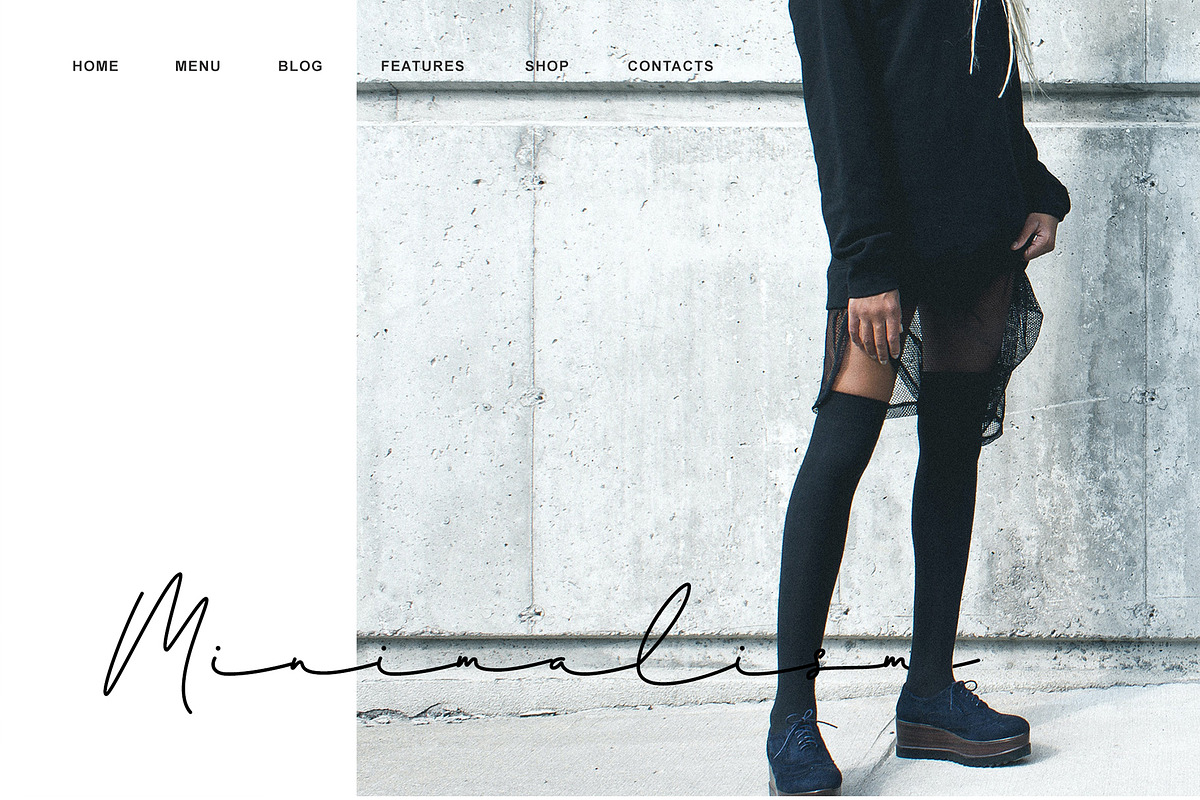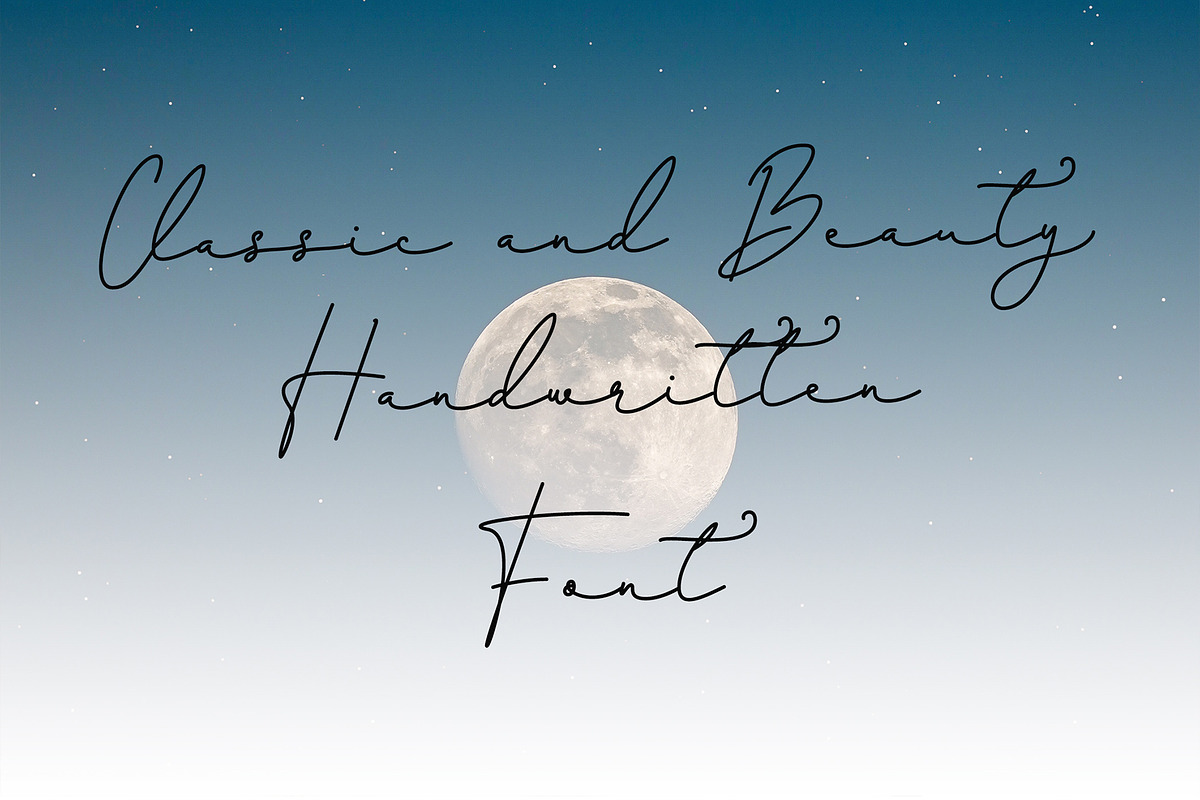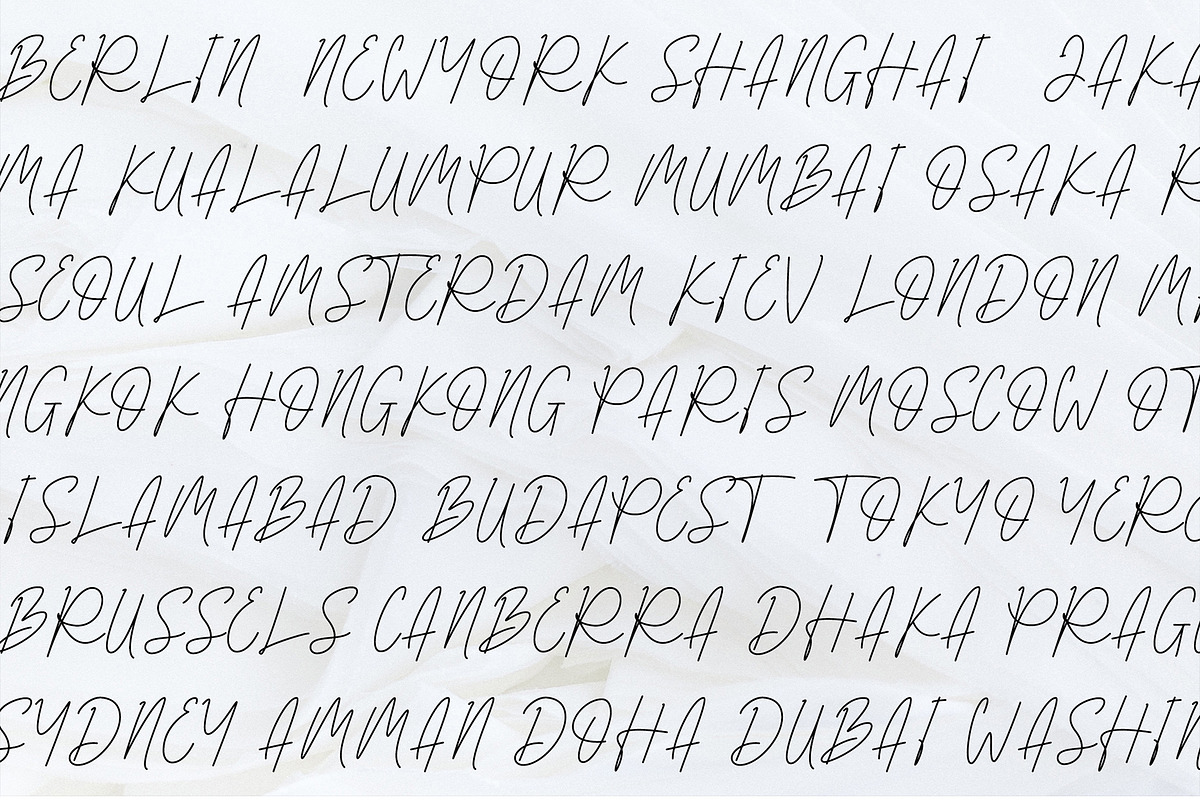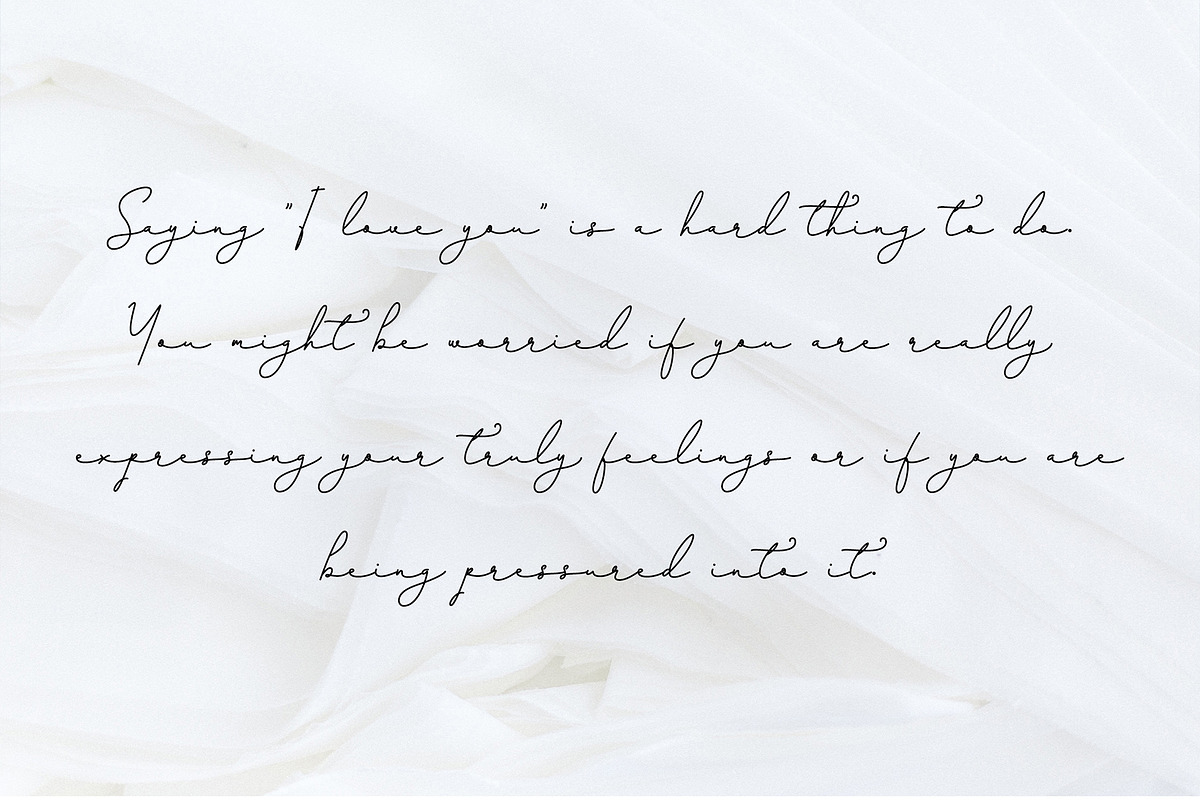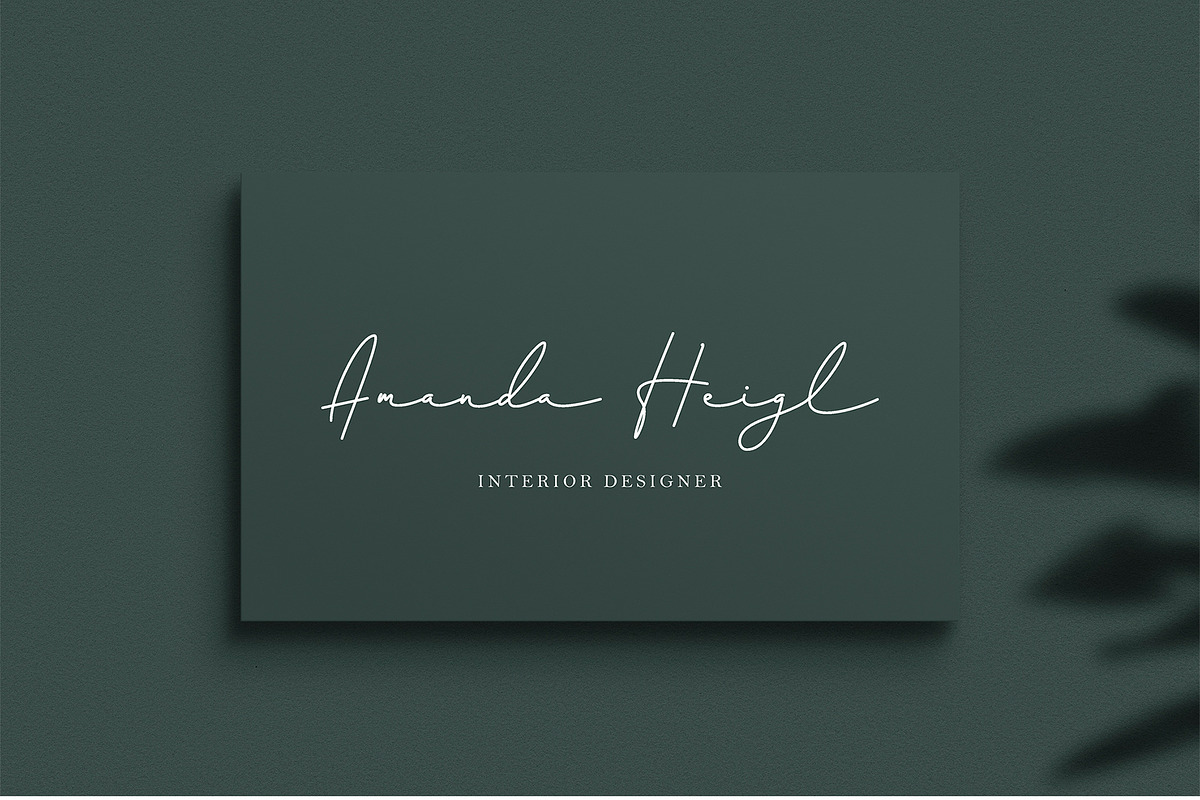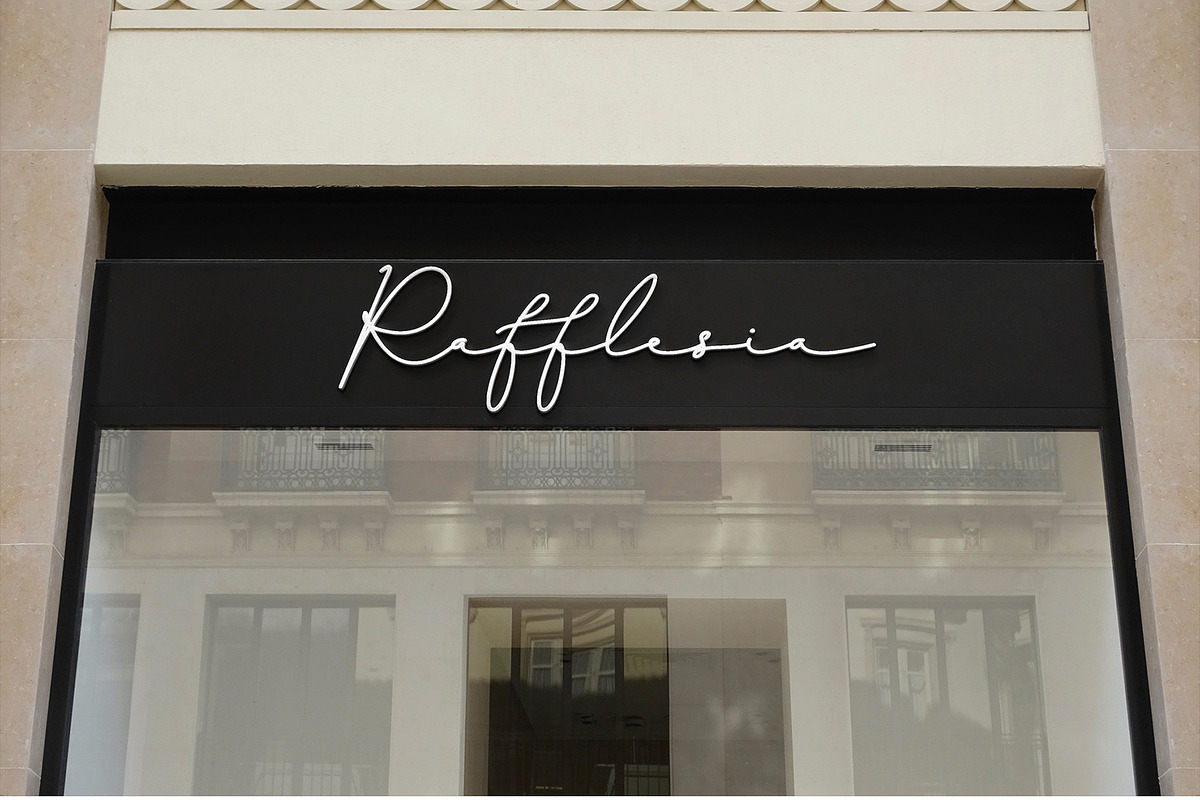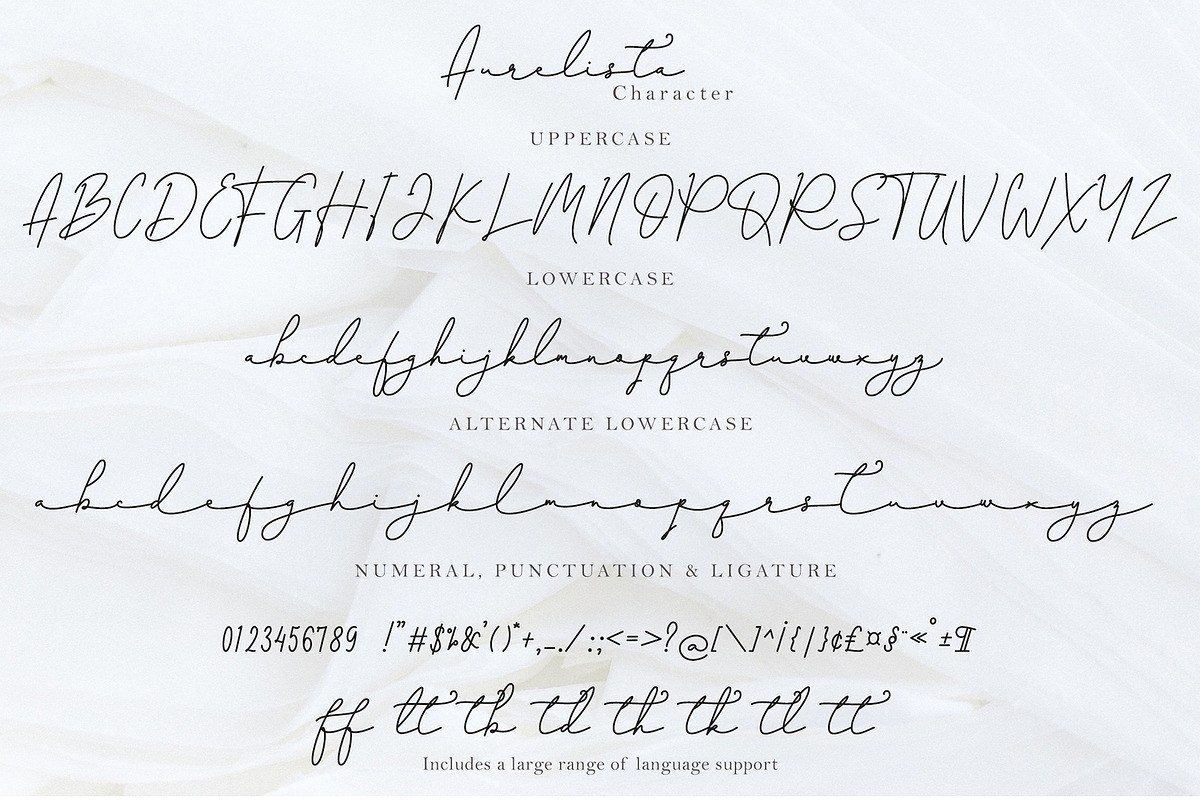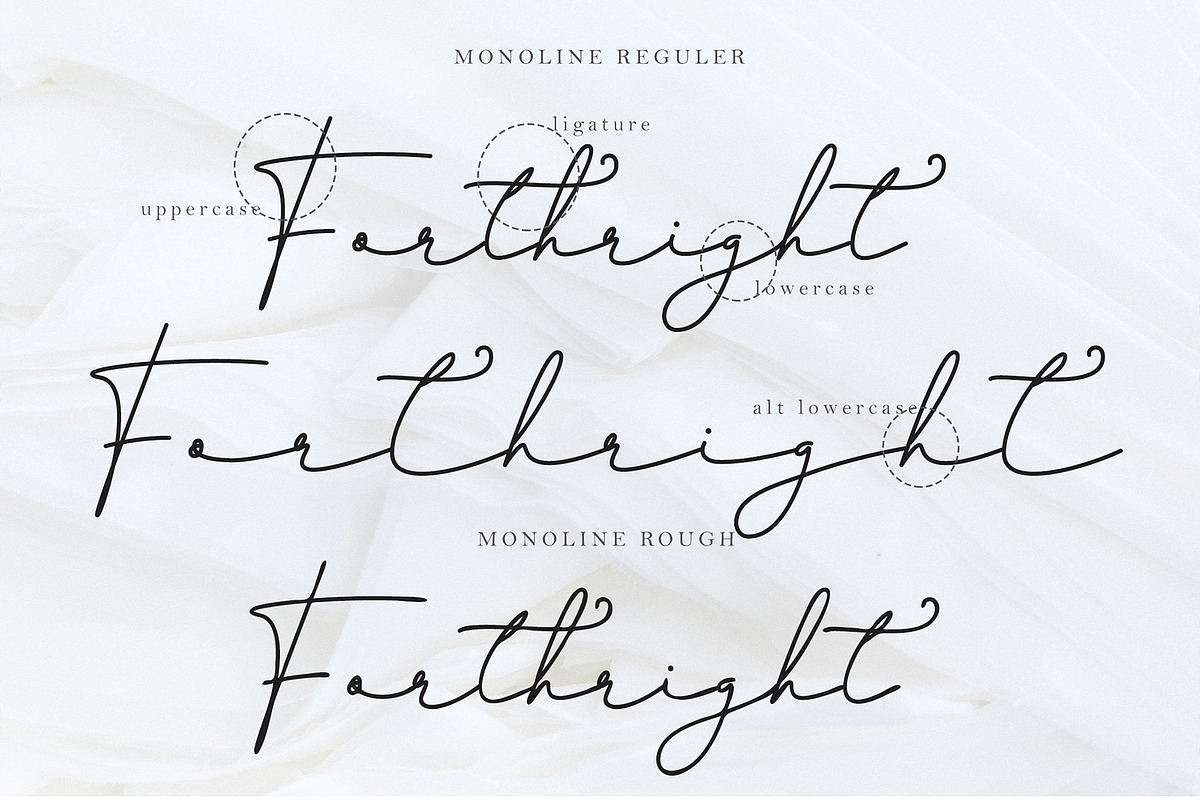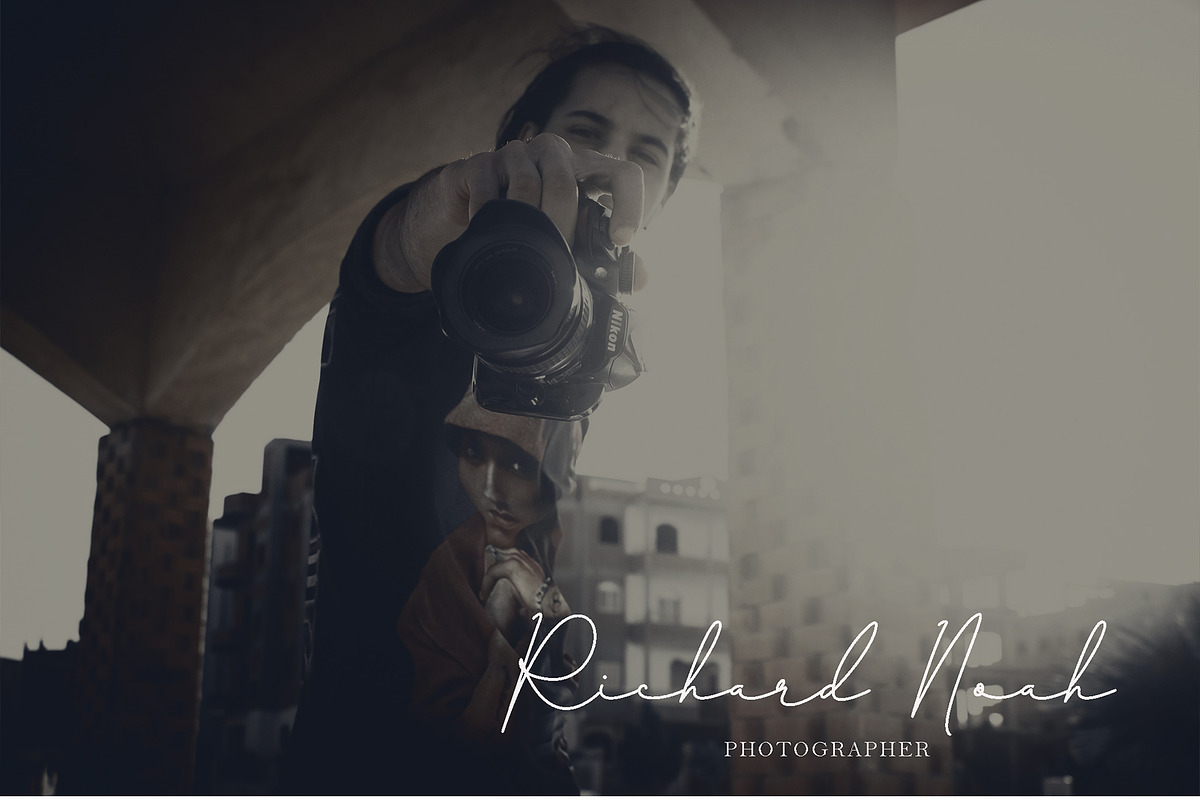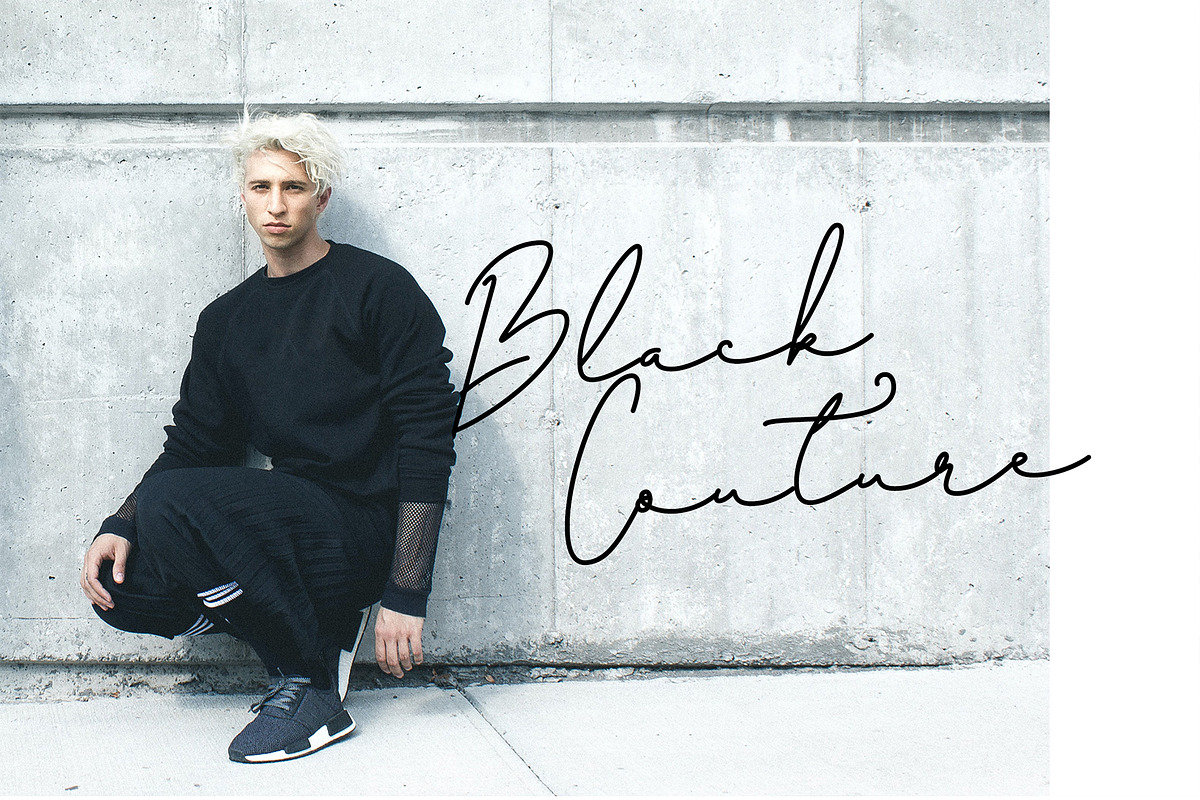
Aurelista - Monoline Signature
Aurelista - Monoline Signature by erlosDESIGN
Aurelista is a stylish and delicate script font. It has a clean, thin and smooth vibe and it will be a hit for any design that you want to add it to. This font is PUA encoded which means you can access all of the glyphs and swashes with ease!